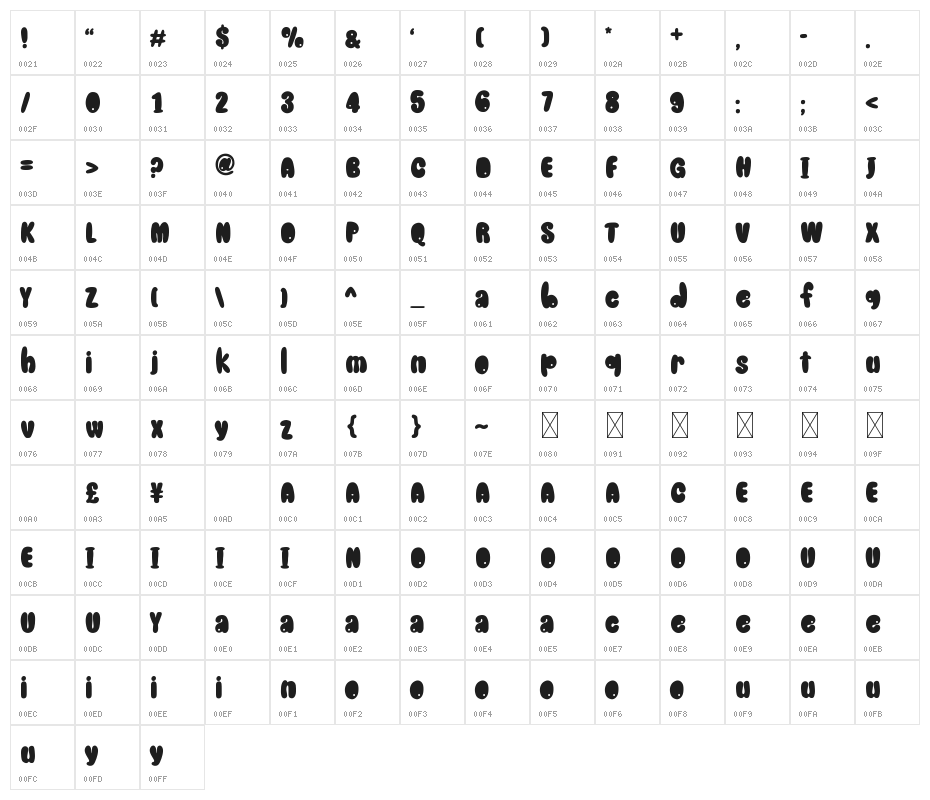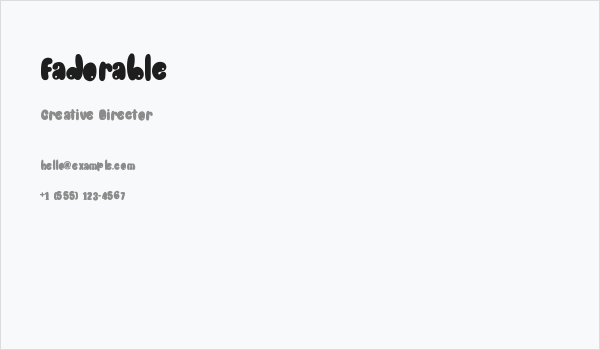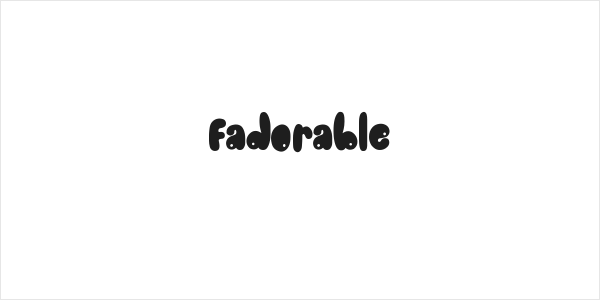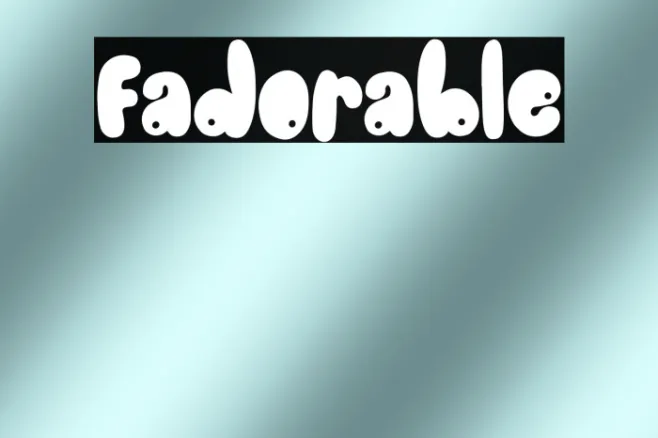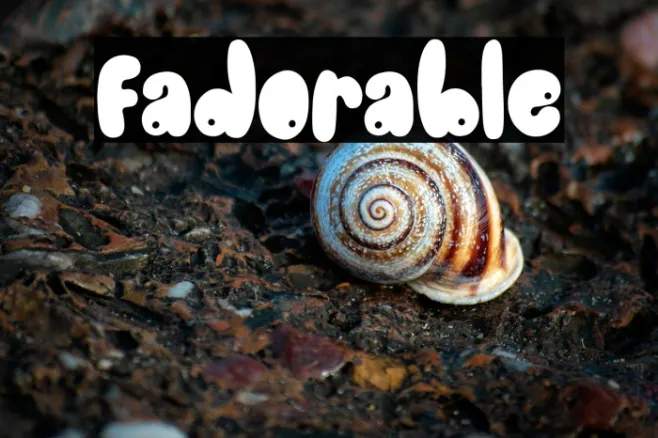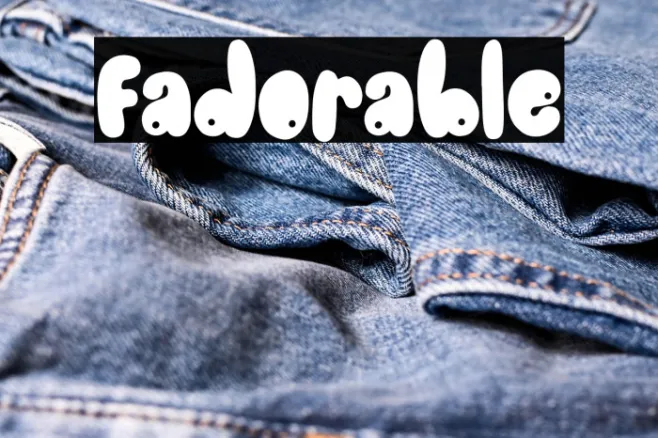
Fadorable Font
Fadorable Description
This playful and bold font features rounded, bubble-like characters that exude a sense of fun and whimsy. The letters are thick and substantial, with a consistent stroke width that gives them a strong presence on the page. The rounded edges and soft curves contribute to a friendly and approachable aesthetic, making it ideal for designs that aim to convey warmth and creativity. The font includes a full set of uppercase and lowercase letters, numerals, and a variety of special characters, all maintaining the same bubbly style. Its unique appearance makes it stand out, perfect for projects that require a distinctive and eye-catching typeface.